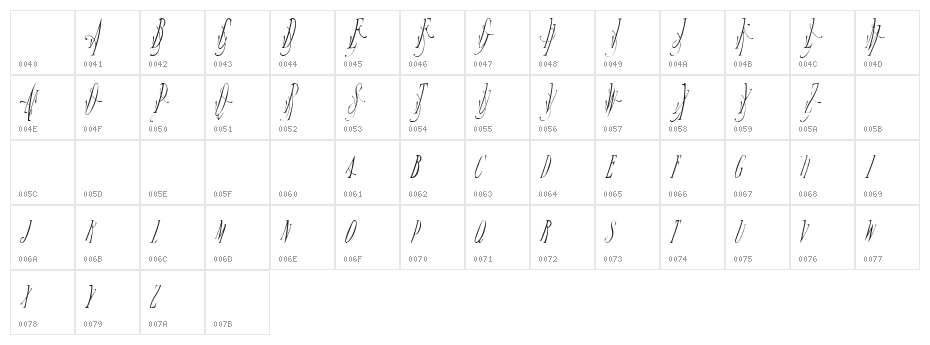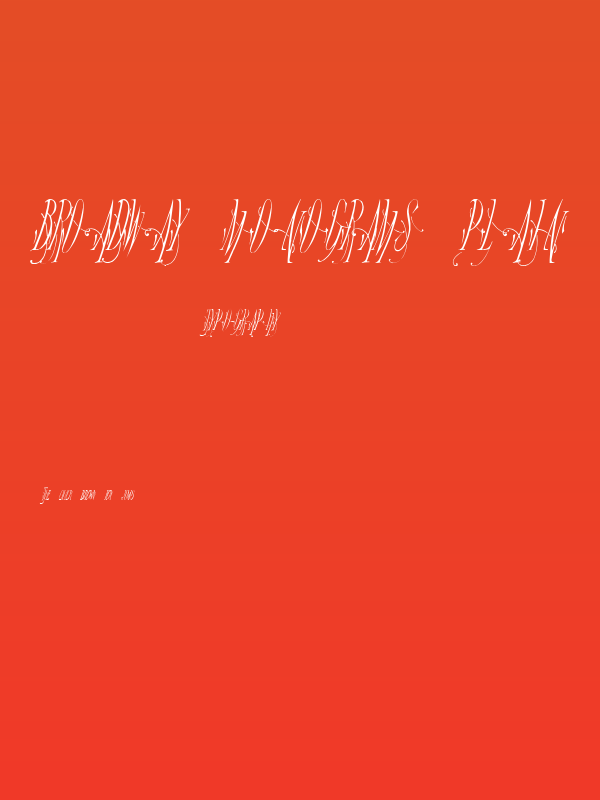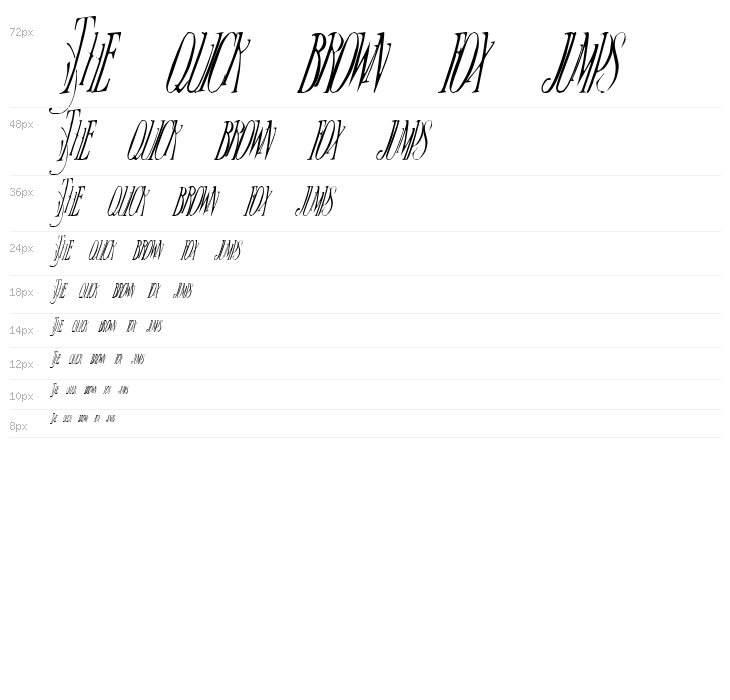
Broadway Monograms Plain Font
Broadway Monograms Plain Description
This font features an elegant and intricate design with a strong emphasis on decorative elements. Each character is adorned with flourishes and swashes, creating a sense of sophistication and style. The letters are tall and slender, with a high contrast between thick and thin strokes, giving them a dramatic and eye-catching appearance. The overall aesthetic is reminiscent of classic calligraphy, yet it maintains a modern twist with its unique embellishments. This font is perfect for projects that require a touch of elegance and flair, such as invitations, monograms, and luxury branding.
| Proposed Projects | Ideal for wedding invitations, luxury branding, monograms, and decorative headings. |